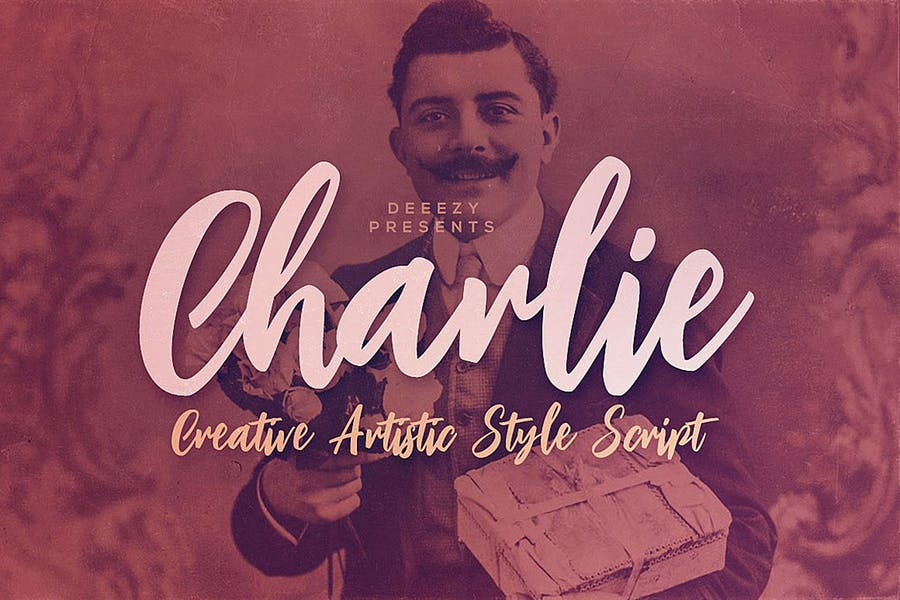
Charlie Script Font
Charlie Script Font is perfect for personal branding, friendly business communications, casual cafe signage, approachable lifestyle blogs, handmade craft labels, warm hospitality marketing, personalized stationery design, and authentic small business advertising.
What makes Charlie Script Font exciting is its approachable charm that embodies genuine warmth and personal authenticity with handwritten character and friendly sophistication. The font features flowing letterforms with natural curves and personable character variations that evoke handwritten notes, friendly conversations, and the genuine warmth of personal connection and authentic communication. Its distinctive script styling and approachable appeal communicate friendliness, authenticity, and personal touch, making every message feel written by a friend and touched by the genuine warmth of personal care and authentic human connection.
The Charlie Script Font family includes regular weight with uppercase and lowercase letters, numerals, punctuation marks, and special characters. Premium versions often feature casual alternates and friendly flourishes that enhance the warm, personal aesthetic perfect for small business and personal branding applications.
This charming personal typeface brings instant warmth and authentic credibility to any friendship-focused project. Charlie Script Font Free Download delivers exceptional results for small businesses and personal brands seeking to communicate genuine warmth, personal authenticity, and friendly approachability to customers and communities seeking personal connections.
The friendly character of Charlie Script Font makes it particularly valuable for local cafes, personal service providers, and handmade business owners. Its excellent readability ensures personal messaging and friendly communications remain clear while maintaining the distinctive handwritten aesthetic that appeals to customers seeking authentic personal experiences and genuine human connection.
Small business marketers appreciate how Charlie Script Font effortlessly conveys personal authenticity and friendly warmth. The font's natural proportions and handwritten details create welcoming brand materials that establish personal connections with audiences who value genuine relationships, personal service, and the authentic warmth of friendly business interactions and personal care.
The versatile friendliness of this typeface extends to personal coaching, community services, and local artisan businesses where personal authenticity enhances trust and friendly appeal. Charlie Script Font Free Download provides creative professionals with an essential tool for developing memorable, warmth-driven designs that resonate with audiences who embrace personal connection, friendly service, and the genuine charm of handwritten authenticity in their business and personal relationships.